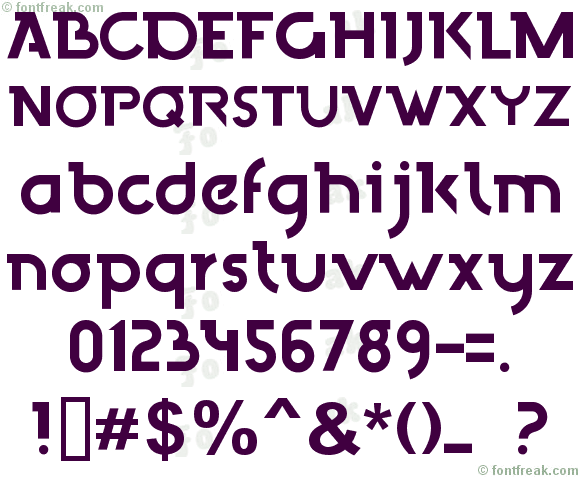
Finchley
About Finchley
Finchley is a distinctive display font designed by Levi in 1998, characterized by its unique blend of modern aesthetics and classic influences. This font falls into the category of decorative typefaces, boasting a playful yet sophisticated style that captures attention. Its stroke weight is varied, with bold lines that create a strong visual impact, while the contrast in thickness adds depth and dynamism to each letterform. The spacing is well-balanced, allowing for easy readability, making it suitable for a range of design applications.
The Finchley font is an excellent choice for various use cases, particularly in creative projects that require a touch of flair. It is ideal for wedding invitations, where its elegant style can enhance the romantic ambiance. Additionally, it works well for movie posters, where striking visuals are essential to attract audiences. Restaurant menus can also benefit from its stylish appearance, making dishes look more appealing. Furthermore, Finchley is perfect for branding projects, especially for small businesses looking to establish a unique identity in competitive markets.
The target audience for Finchley includes graphic designers, small business owners, and content creators who appreciate the artistic value of typography. Its versatility and charm make it a valuable addition to any designer's toolkit, allowing for a wide range of creative expressions.
What truly sets the Finchley font apart is its ability to blend contemporary design with a classic touch, making it a timeless choice for various applications. Whether you are looking to add a sophisticated flair to your project or to make a bold statement, Finchley font free download provides an accessible option for those in need of a unique typeface that stands out in any setting.